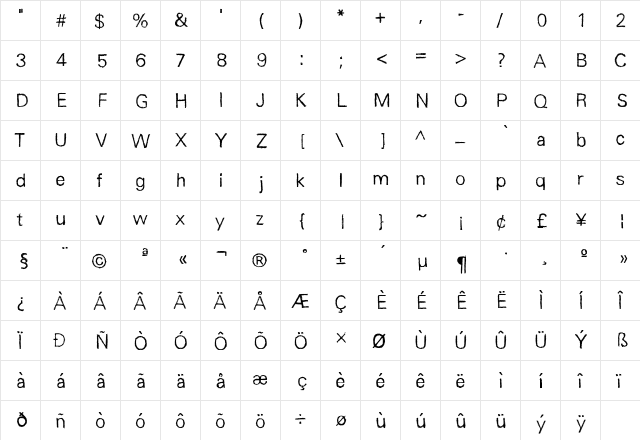
Unisketchlightlimited Light
| Foundry | Ursula Hitz |
| Designer | Ursula Hitz |
| Year | 2010 |
Design Context for Unisketchlightlimited Typeface
Unisketchlightlimited offers clean, dependable letterforms without strong stylistic allegiance, making it a practical choice for designers who need flexibility. The delicate stroke weight brings airiness and refinement to layouts.